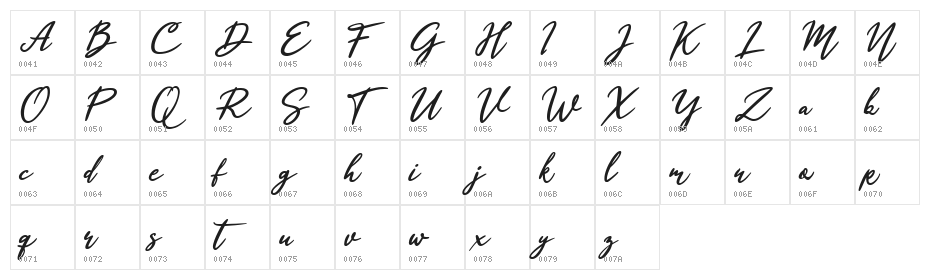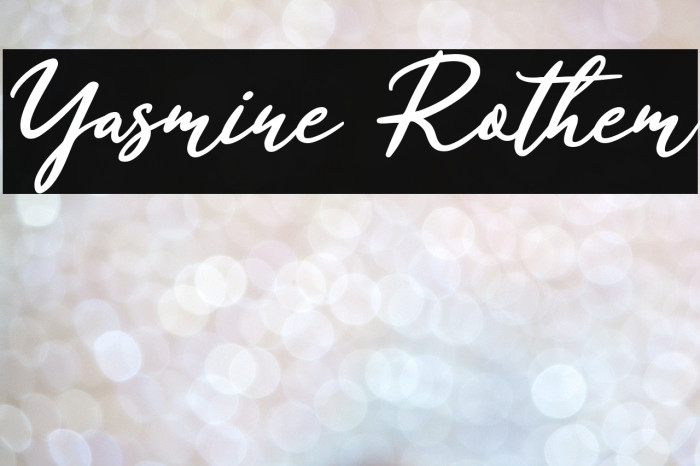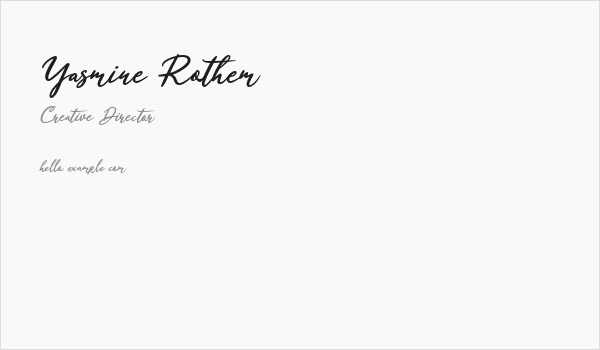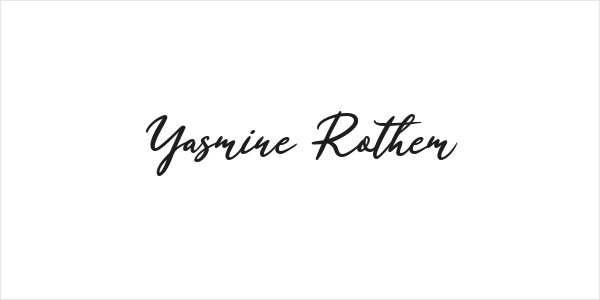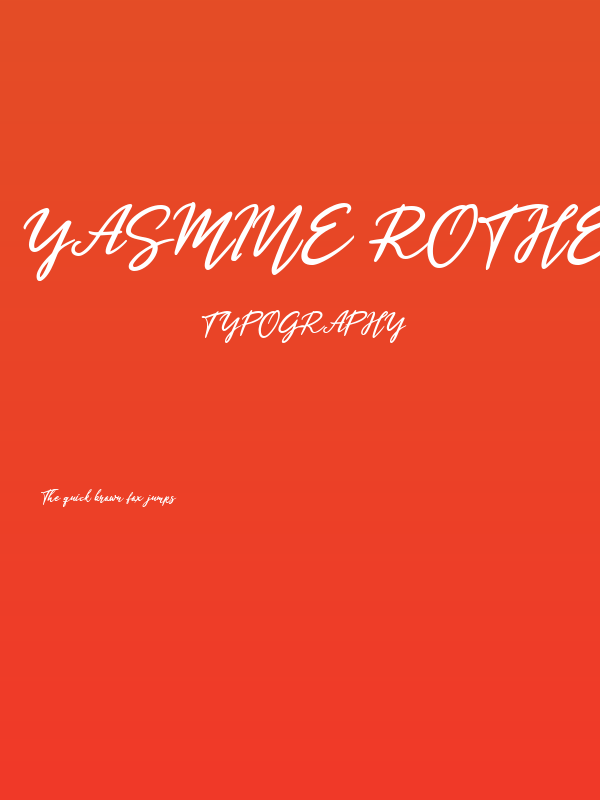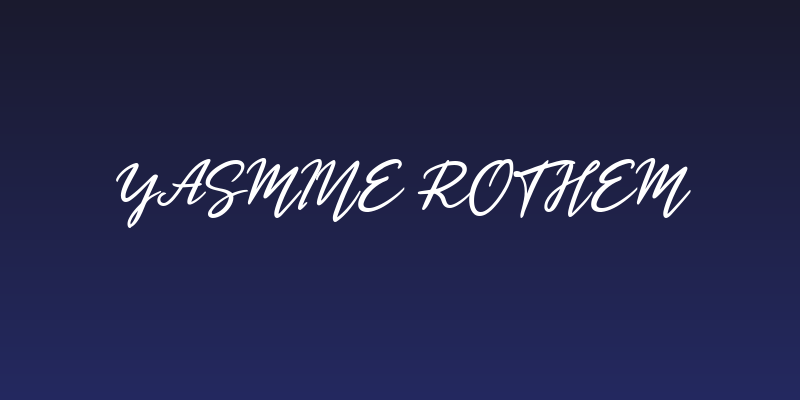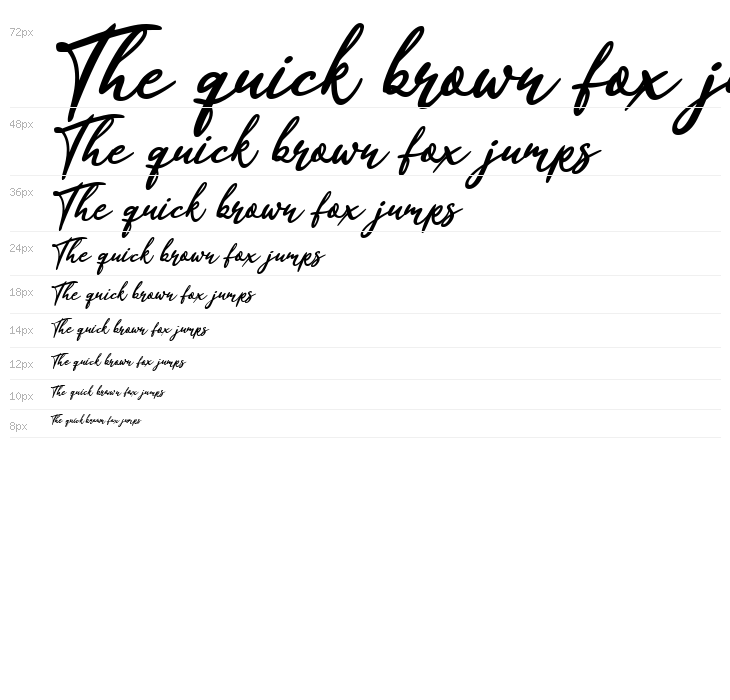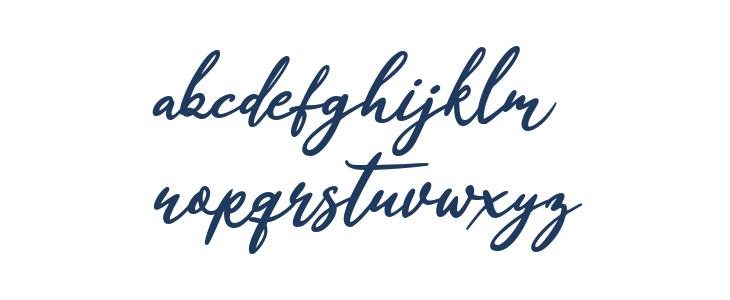
Yasmine Rothem Font
Yasmine Rothem Description
This font exudes a dynamic and elegant script style, characterized by its flowing, cursive letterforms. The uppercase letters are slightly more restrained, maintaining a sense of sophistication, while the lowercase letters exhibit a more pronounced slant and flourish, adding a touch of playfulness. The strokes are smooth and continuous, creating a sense of movement and fluidity. The font maintains a consistent weight throughout, providing a balanced appearance. The overall aesthetic is both modern and timeless, making it suitable for a variety of design applications.
| Overall Style | Elegant, Modern |
| Proposed Projects | Ideal for wedding invitations, greeting cards, branding projects, and elegant packaging designs. |